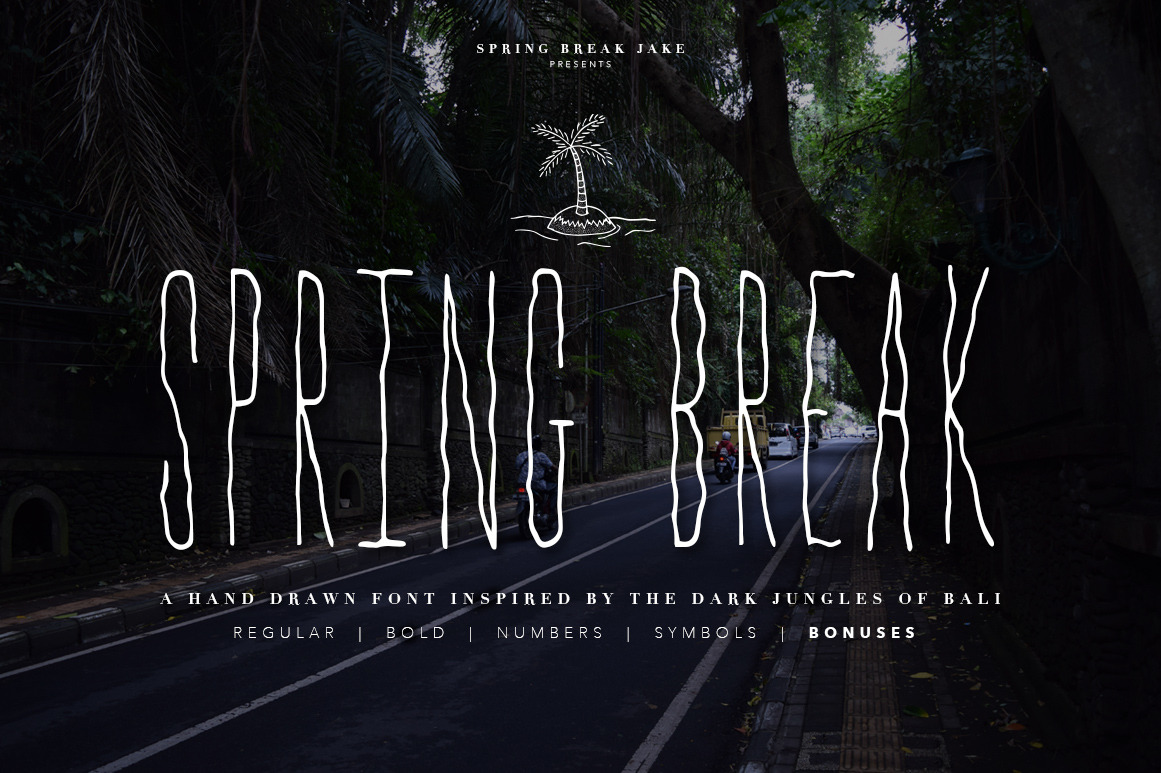
Spring Break Font + Bonus Graphics
When darkness rolls through the lush jungle, the real creatures come out.
Spring Break’s slim, wavy style evokes feelings of surf nostalgia. Images are conjured up of a sun-baked surfboard leaning on a palm tree while the beach party rages on into the night. This sans serif typeface was created to express my love for the seedy underbelly that’s present in all my favorite tropical destinations.
Spring Break Font pairs well with both serif and sans serif fonts and is perfectly suited to add life to your next illustration, invite, product, and more.
- Both styles have uppercase, lowercase, numbers, and punctuation
- Bonus illustrations that pair perfectly with this hand drawn, sans serif font